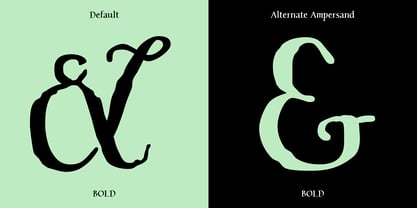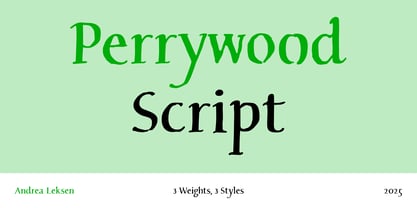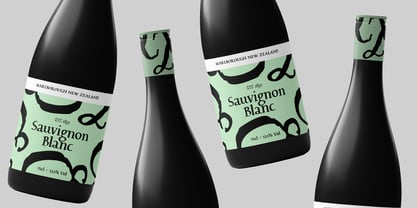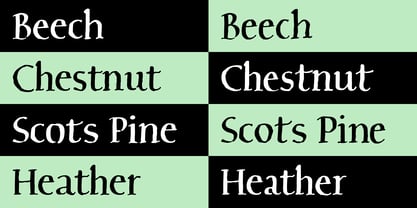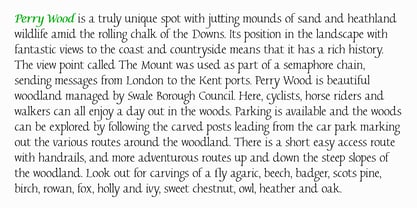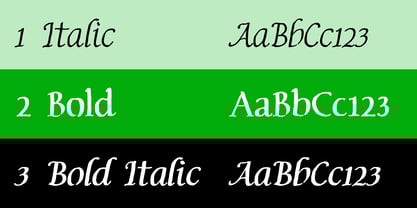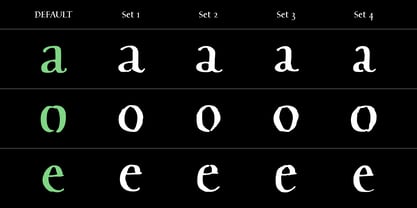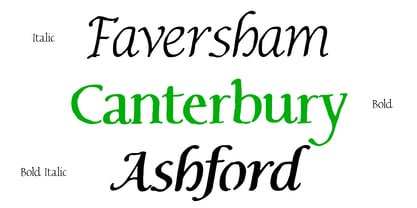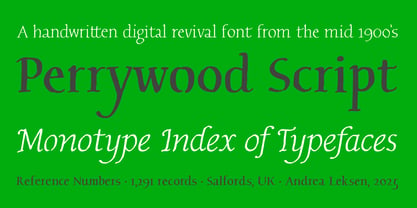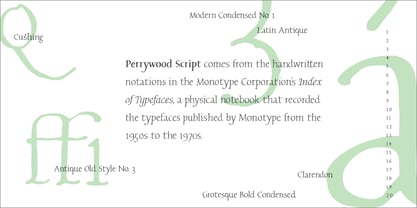
Perrywood™ Script
The Perrywood Script Font Family was designed by Andrea Leksen, William Massey and published by Monotype. Perrywood Script contains 4 styles and family package options. More about this family
Perrywood Script is a handwritten typeface with very traditional letterforms. It has the irregular look of something written with a pen, yet it was clearly done by someone with a firm knowledge of Renaissance handwriting. It lends itself to short passages of text, even at small sizes, and at large sizes it can give an impression that is simultaneously both formal and informal.
Perrywood Script comes from the handwritten notations in the Monotype Corporation’s Index of Typefaces, a physical notebook that recorded the typefaces published by Monotype from the 1950s to the 1970s. Type designer Andrea Leksen used this as the basis for a revival, not of a typeface, but of a typographic style of writing. The resulting fonts include two weights, Regular and Bold, with italic companions to each. The italics are based on Renaissance chancery italic, which were not used in the notebook but come from the same calligraphic tradition.
Longtime senior Monotype type designer Robin Nicholas provided Leksen with background on the Index, which began as a consolidation of information from “old leather-bound diaries, pink record cards, and other miscellaneous records.” He thinks that the book was initially written by William Massey, who worked in the Fount Records department and was known at Monotype for his excellent penmanship.
“As I flipped through images of the notebook,” writes Leksen, “I was impressed with the writer’s consistency of metrics, strokes, and terminals, down to the minute details of serifs, and heights of different types of numbers. I love the tall x-height, the beautiful design of the double story g, and the attention to detail that was taken to create beautiful connections in the ligatures and leave meticulous letterspacing throughout.”